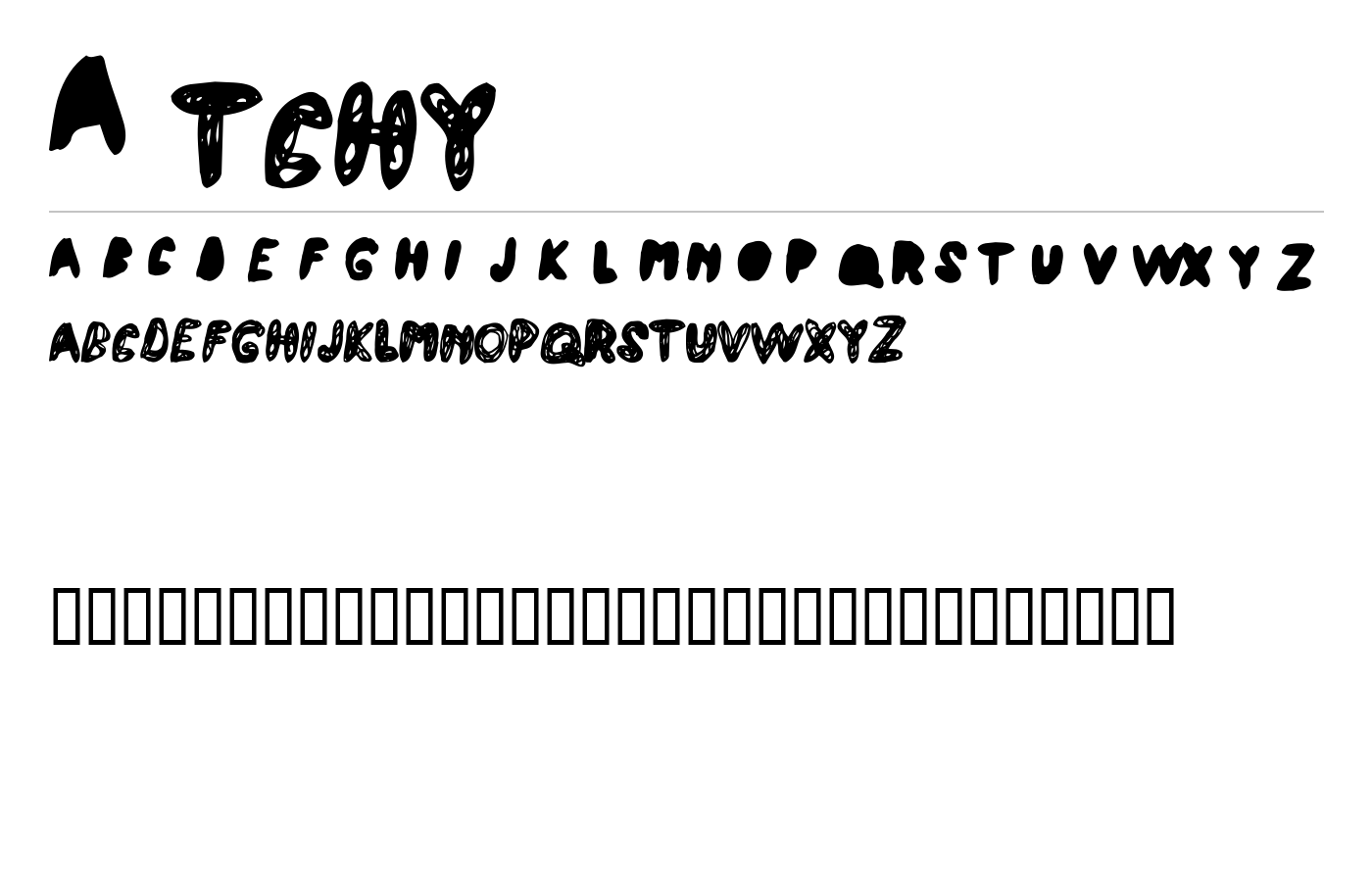
Atchy Font is a playful, hand-drawn sans serif typeface with a bold and irregular style that feels fun and quirky. Its thick strokes, uneven shapes, and varied textures give it a casual, artistic look perfect for creative and informal designs. This font works well for eye-catching headlines, posters, and branding that want to convey a lively and approachable personality.
Atchy Font
About Atchy Font